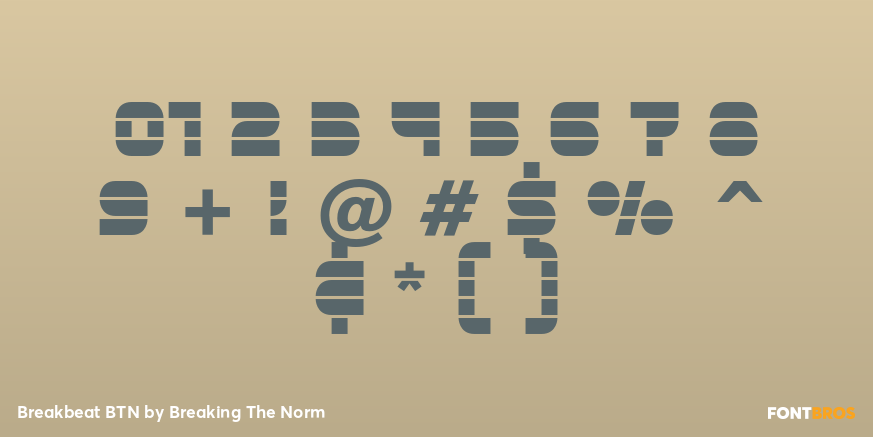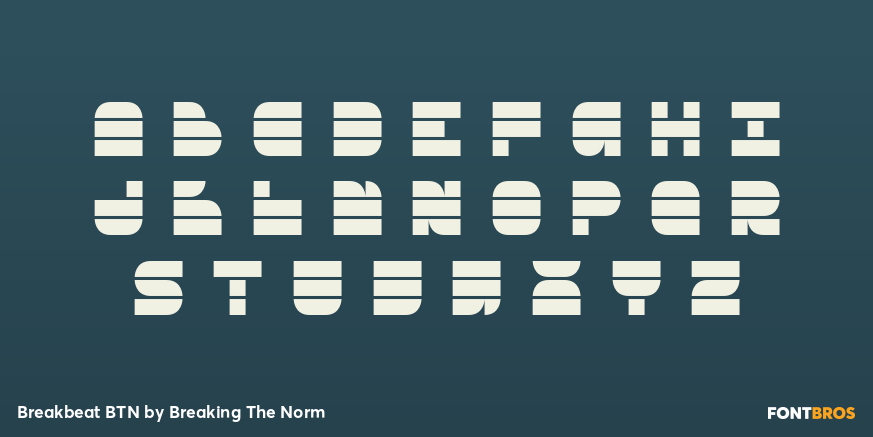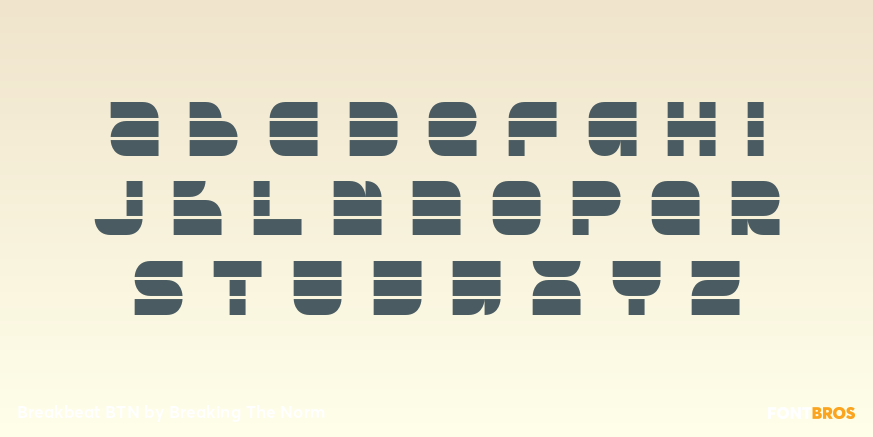
Breakbeat BTN
Font Family by Breaking The Norm
Breakbeat BTN is a strong techno display family built for high-energy design. With its sharp futuristic styling and mix of Outline, Regular, Solid, and Oblique variants, it delivers a bold electronic voice suited to attention-grabbing typography. Breakbeat BTN is especially effective for club flyers, rave graphics, music branding, event posters, gaming visuals, sci-fi themes, and digital design projects that need a hard-edged modern feel. Its combination of structured forms and energetic attitude makes it a natural fit for designs rooted in motion, sound, and nightlife culture.